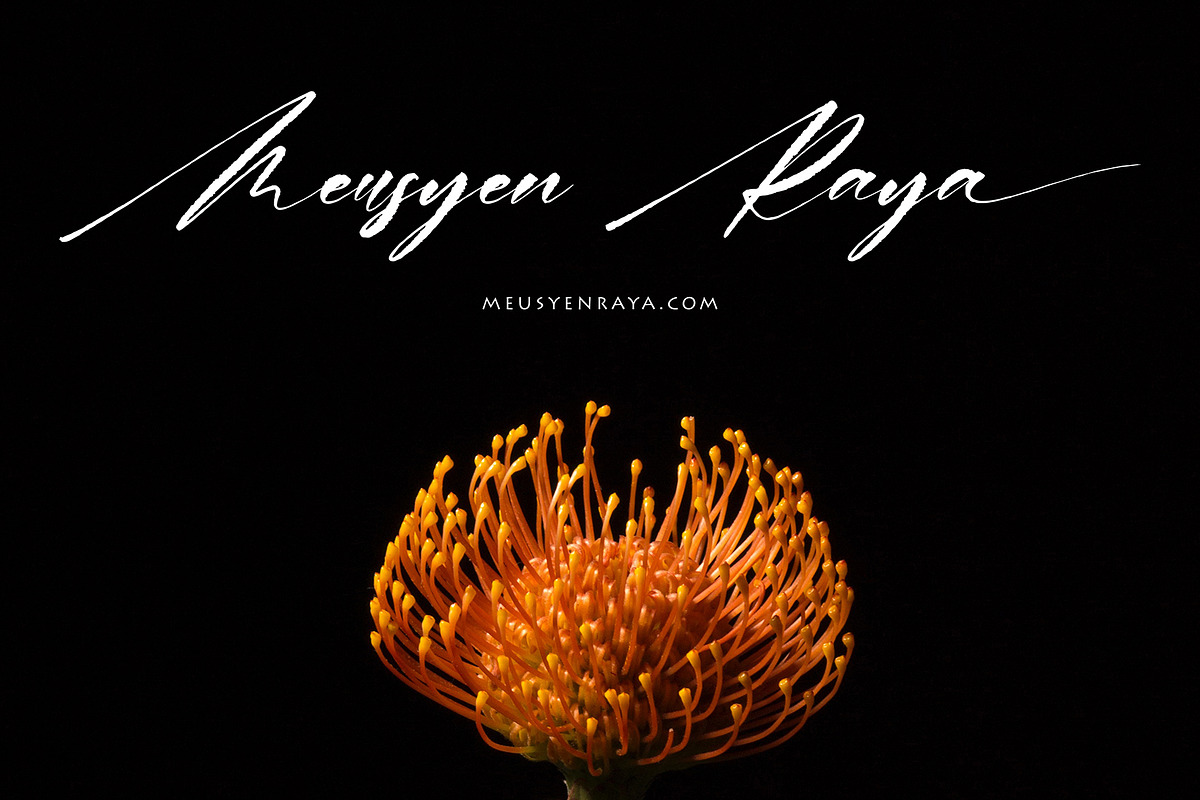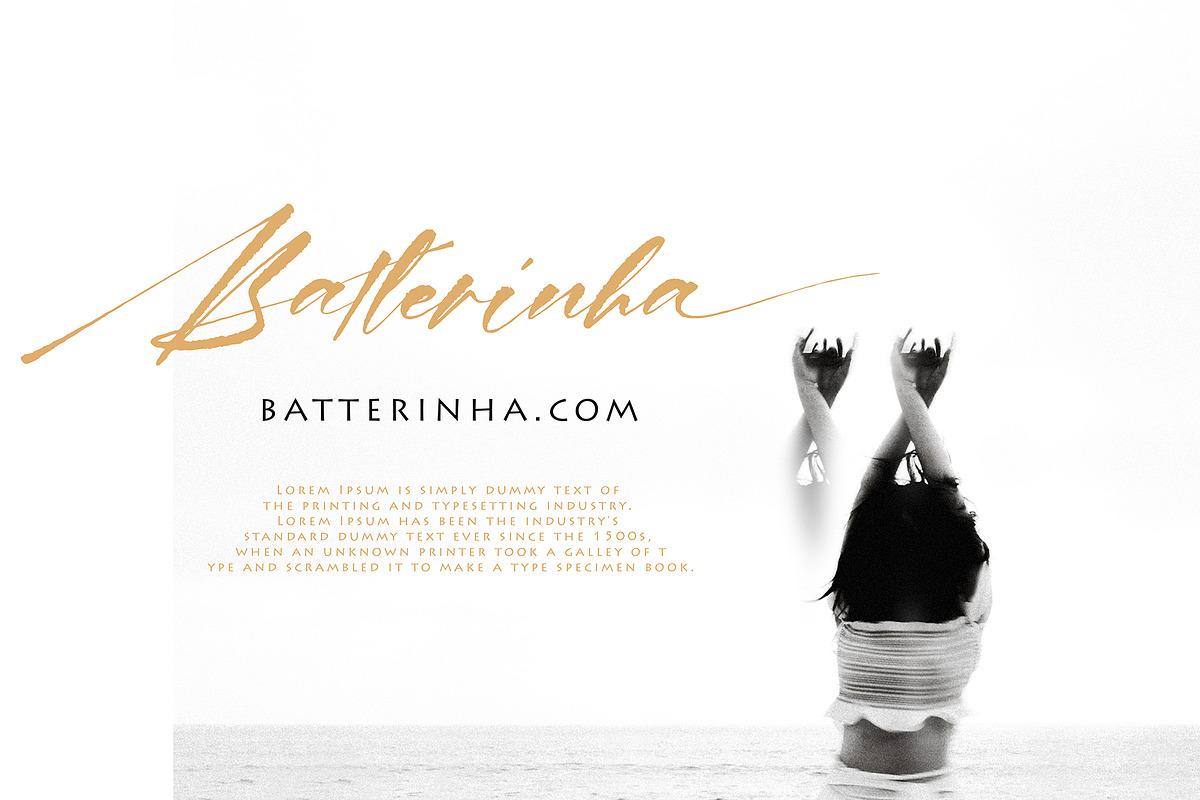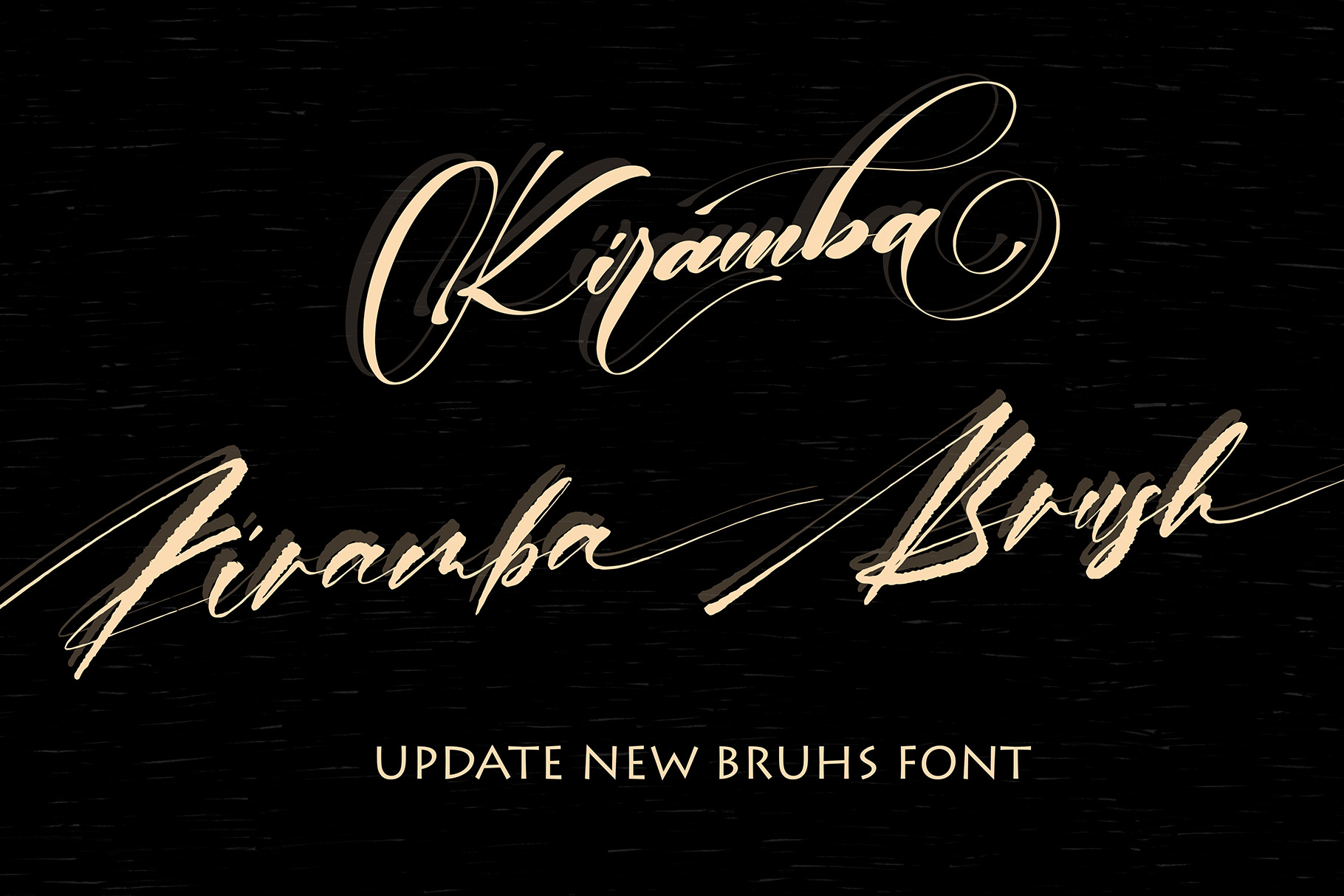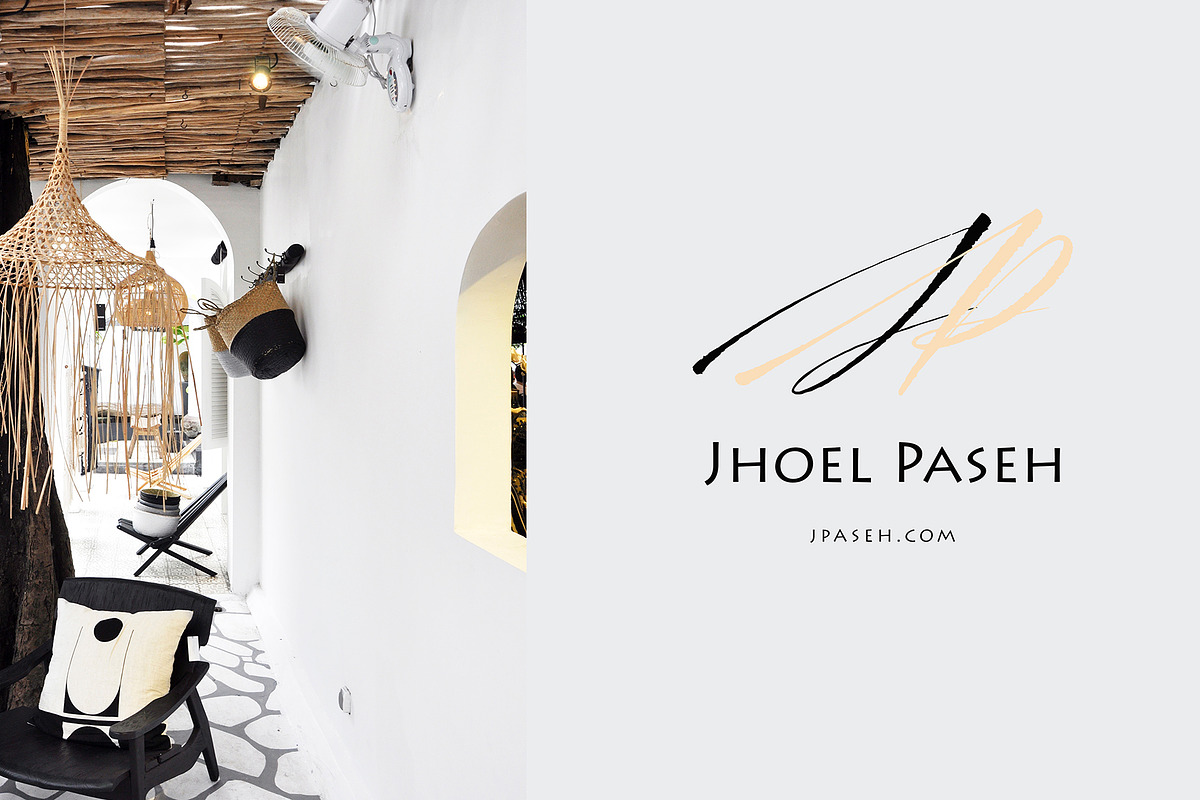
Kiramba New Update Font Duo
Kiramba font with modern calligraphy style, this font will perfect for many different project ex: quotes, logo, blog header, poster, banding, fashion, apparel, letter, invitation, stationery, etc...